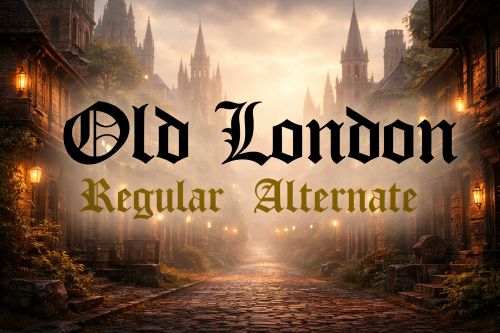
Old London Font
Old London is a striking Gothic-style font designed by Dieter Steffmann, inspired by the ornate blackletter typography of medieval manuscripts and classic English print. With its bold, dramatic strokes and historic character, it’s ideal for logos, headlines, tattoo lettering, and heritage-themed designs. Best of all, it’s completely free to download and use.